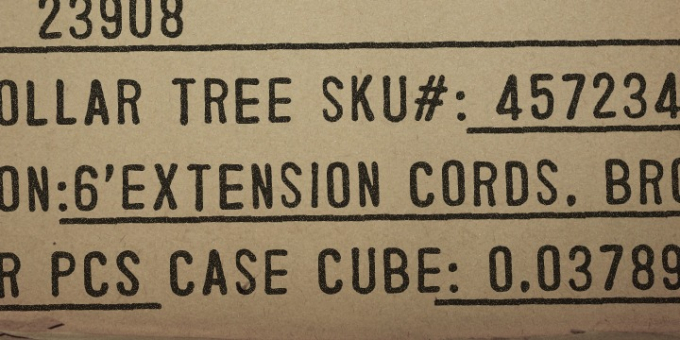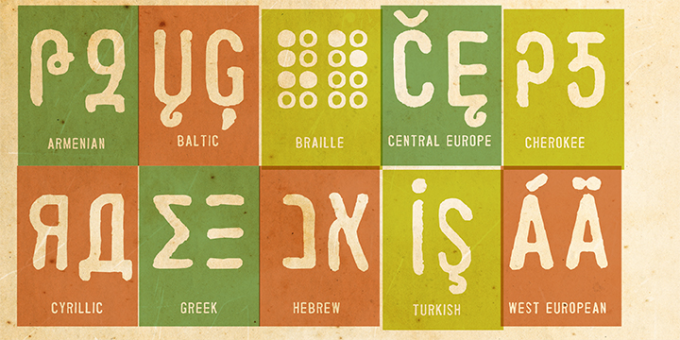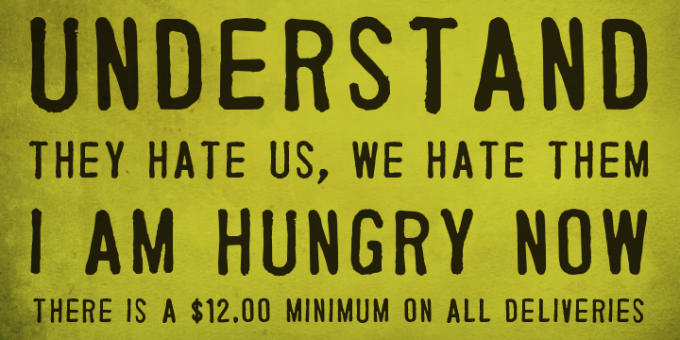
Parcel
Parcel is based on information stamped on the side of some packaging. It was scanned in and converted, then expanded to include a very large character set.